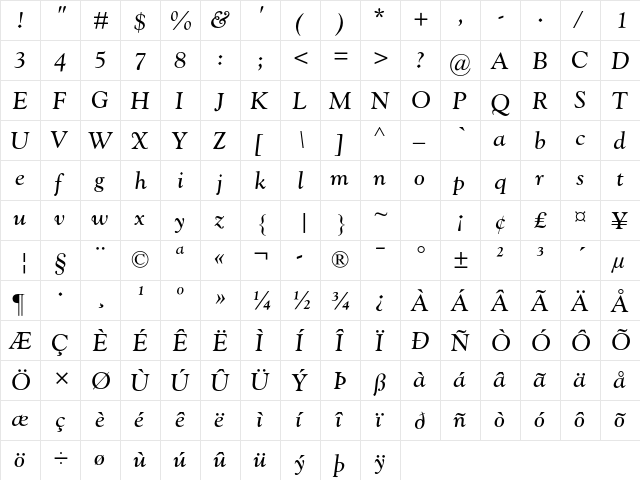
Goudy Catalogue MT Std Italic
Design Context for Goudy Catalogue MT Std Typeface
Goudy Catalogue MT Std offers clean, dependable letterforms without strong stylistic allegiance, making it a practical choice for designers who need flexibility. The slanted form adds forward momentum and visual energy.
Pro Tip: Try Goudy Catalogue MT Std for annotation and caption copy alongside an upright companion — the contrast in angle creates a dynamic but ordered typographic system.